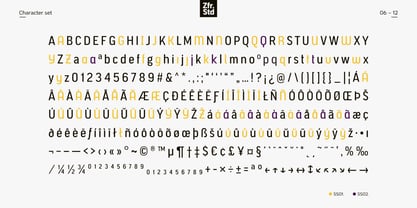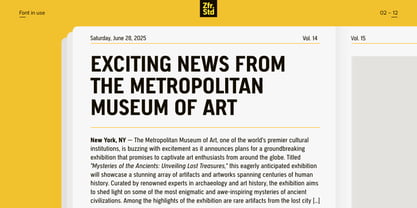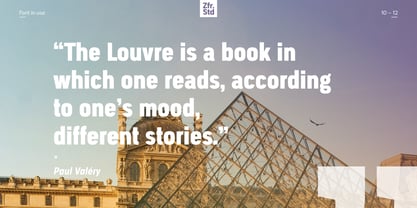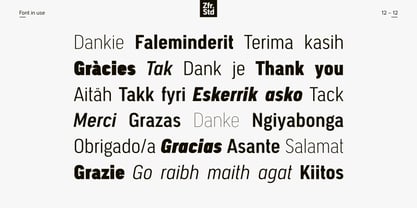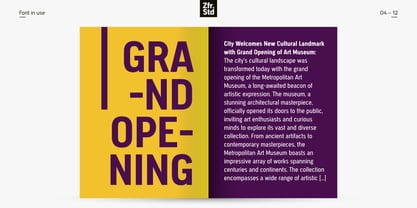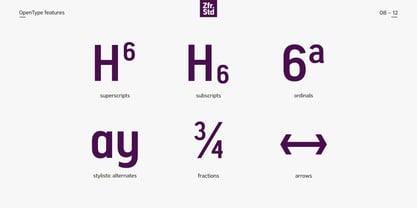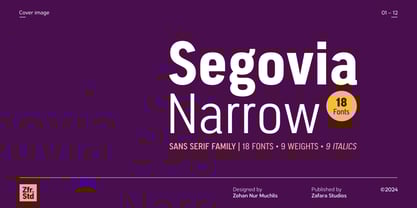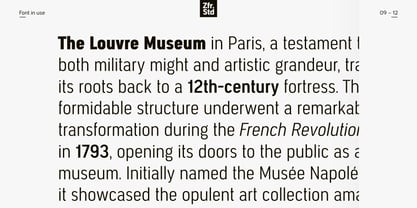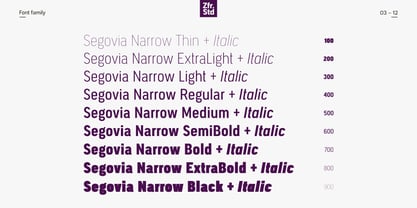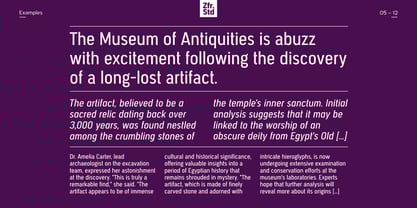
Segovia Narrow
Die Schriftfamilie Segovia Narrow wurde von Zohan Nur Muchlis entworfen und von Zafara Studios veröffentlicht. Segovia Narrow enthält 18 Stile und Familienpaketoptionen.
Segovia Narrow is a sans-serif font designed specifically for headlines and titles. Comes with 9 weights and matching italics, making it 18 styles. It makes perfect for all creative projects. Also, some alternative glyphs will be an attractive choice. Segovia is the perfect choice for logos, titles, headlines and short blocks of text.
The details:
- 364 glyphs: uppercase, lowercase, multilingual, numbers, punctuation, superscript, subscripts, ordinals, fractions, stylistic alternates, arrows, currency
- 9 weights: thin, extralight, light, regular, medium, semibold, bold, extrabold, black
- 9 italics
- 25 languages: Afrikaans, Albanian, Basque, Catalan, Danish, Dutch, English, Estonian, Faroese, Filipino, Finnish, French, Galician, German, Icelandic, Indonesian, Irish, Italian, Malay, Norwegian Bokmål, Portuguese, Spanish, Swahili, Swedish, Zulu